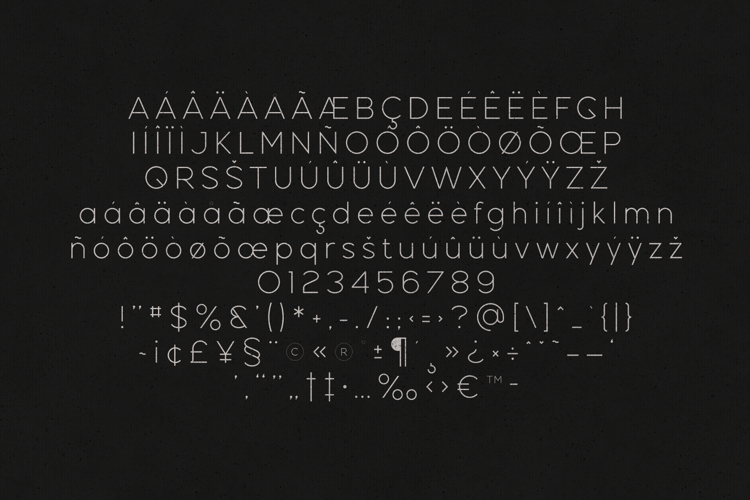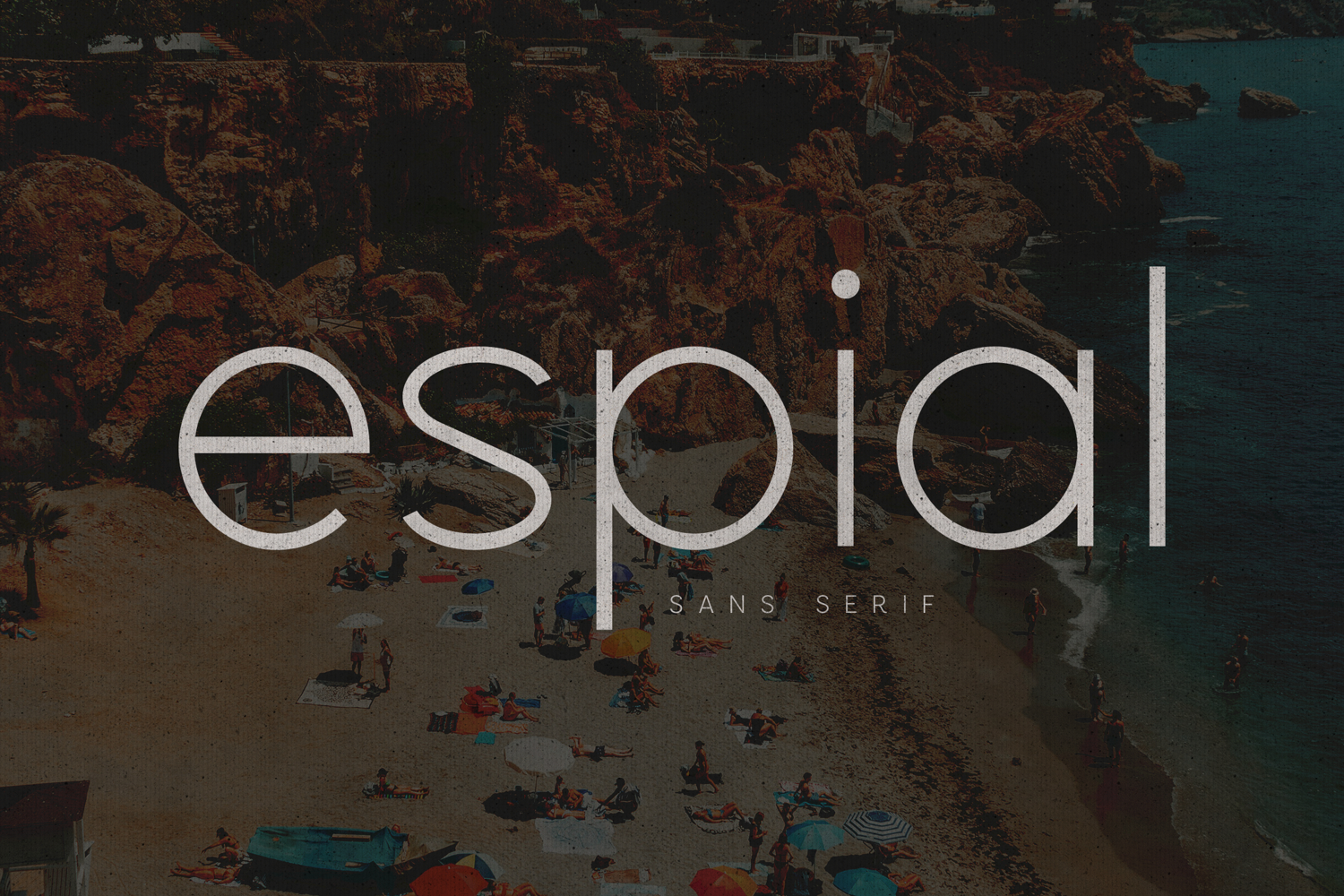
Espial Modern Minimal Sans Serif Font
Espial is a clean, modern sans serif typeface designed for elegant typography, contemporary branding, and minimal design projects.
Built with balanced geometric forms and refined proportions, Espial delivers a sleek and sophisticated visual tone that works beautifully across both digital and print design. The minimalist structure and generous spacing make the typeface highly readable while maintaining a stylish editorial aesthetic.
Espial is perfect for branding, logos, editorial layouts, websites, packaging, posters, and modern design systemswhere clarity and elegance are essential. Its clean lines and neutral character allow it to adapt easily to a wide variety of design styles — from luxury branding to modern UI design.
The font includes uppercase and lowercase characters, numbers, punctuation, and extensive multilingual language support, making it suitable for international projects and professional typography workflows.
Whether you’re designing a modern brand identity, building a website, or creating stylish social media graphics, Espial provides a timeless minimalist typographic foundation.
• Branding & Logo Design
• Editorial Layouts
• Websites & UI Design
• Posters & Headlines
• Packaging
• Advertising
• Social Media Graphics
• Modern Typography Projects